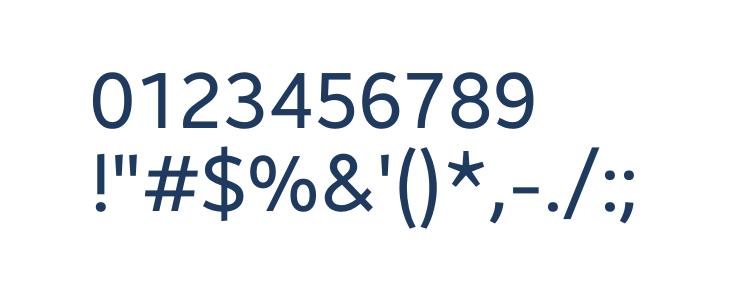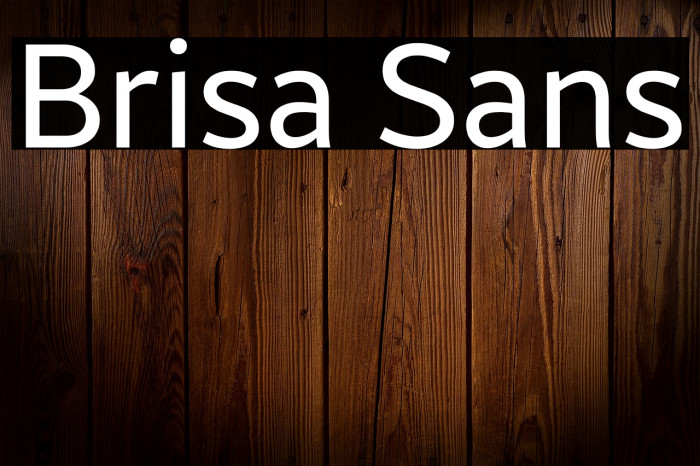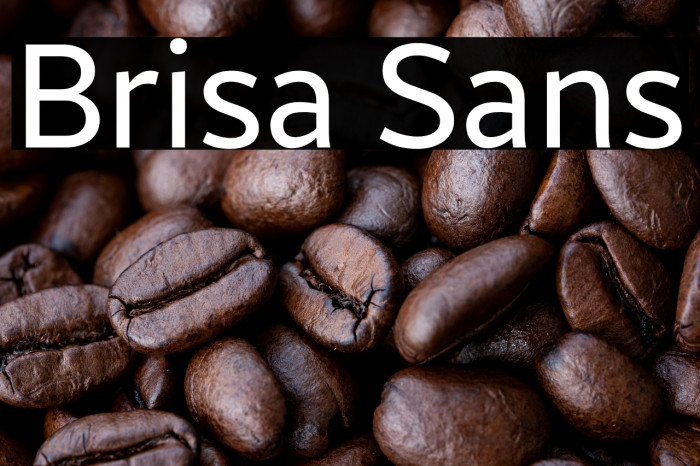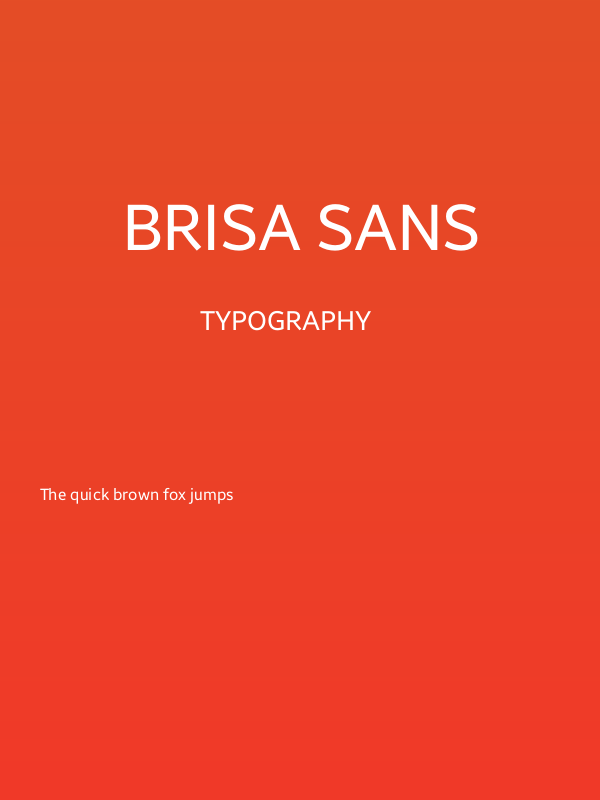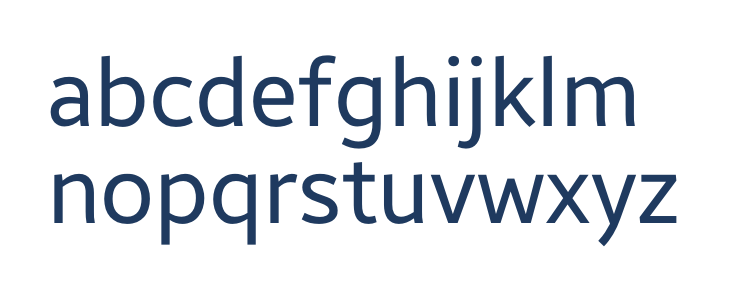
Brisa Sans Font
Brisa Sans Description
This typeface is a clean and modern sans-serif font characterized by its simplicity and readability. The letters are well-proportioned with a consistent stroke width, making it highly legible across various sizes. The design is straightforward, with smooth curves and straight lines that give it a contemporary feel. The uppercase and lowercase letters are balanced, and the numerals are clear and distinct. Special characters are included, maintaining the uniformity of the overall design. This font is versatile, suitable for both digital and print media, offering a professional and polished appearance.